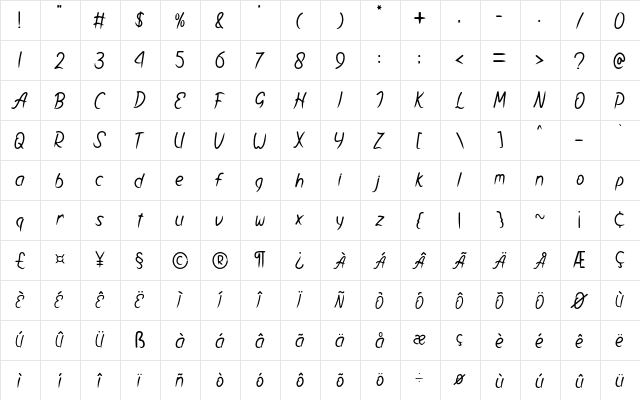
Yellow Star Regular
Design Context for Yellow Star Typeface
Yellow Star is a composed and adaptable typeface that performs quietly and consistently across a wide range of design contexts.